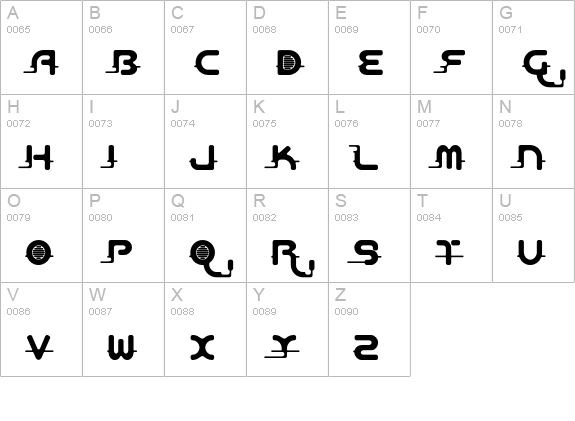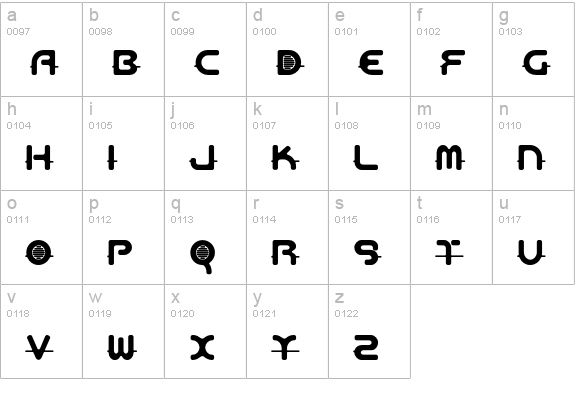
AeosOperating Font Details
AeosOperating font is a modern and sleek typeface designed for digital interfaces and technological applications. Its clean lines and sharp edges make it perfect for conveying a sense of efficiency and professionalism. The font comes in a variety of weights and styles, allowing for versatile use across different design projects. The best part? AeosOperating font is completely free to use! You can download this stylish typeface at FontsMarket.com without any cost, making it a valuable addition to your font library. Whether you're designing a website, app, or presentation, AeosOperating font will elevate your project with its contemporary aesthetic and readability. Experience the power of this free font today and take your designs to the next level!